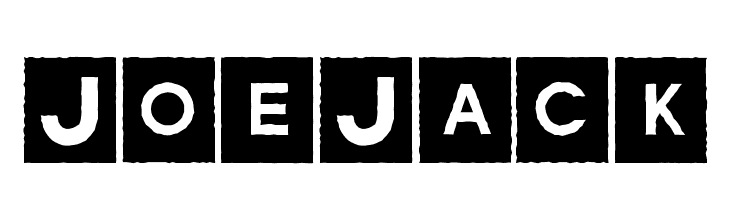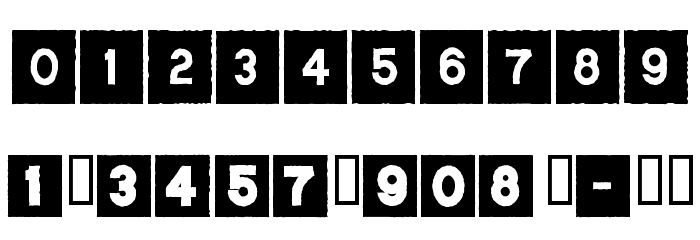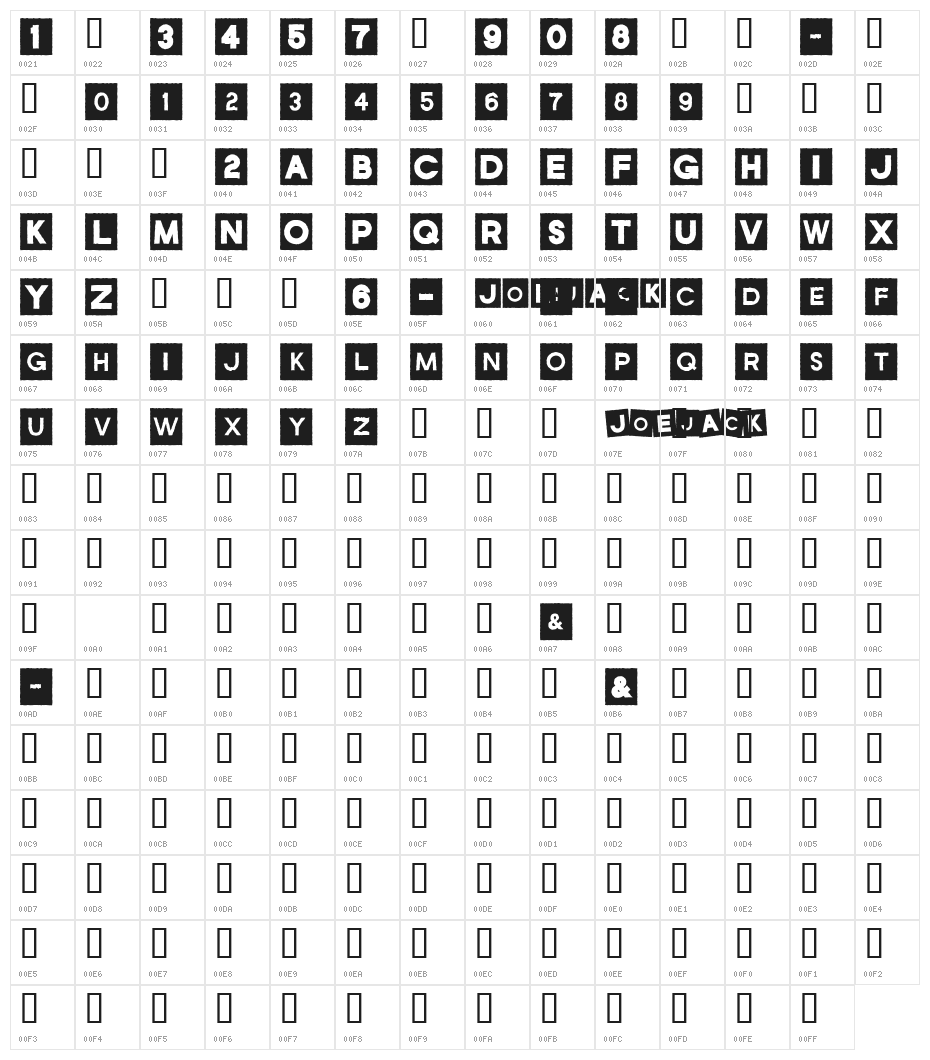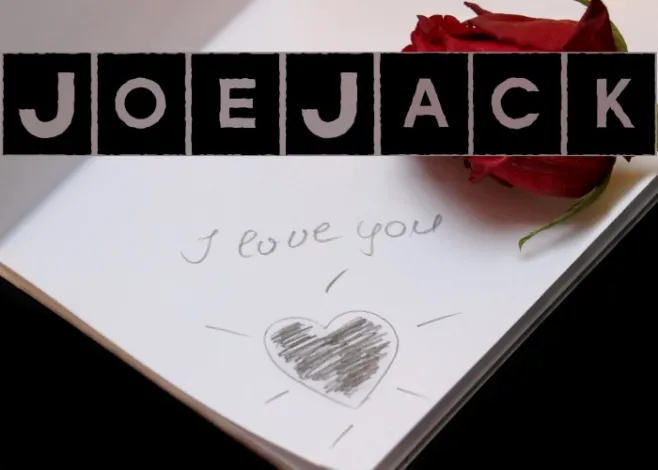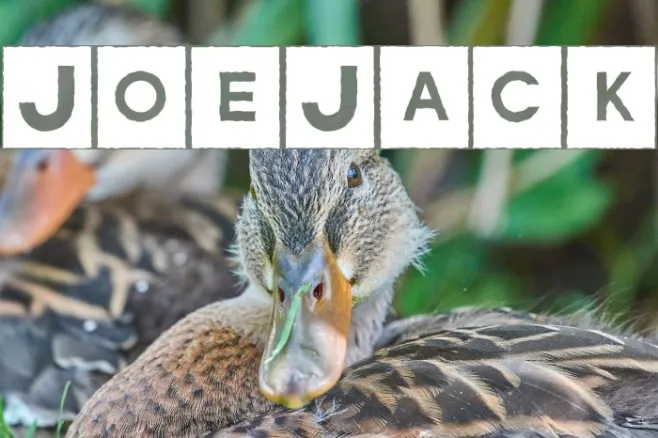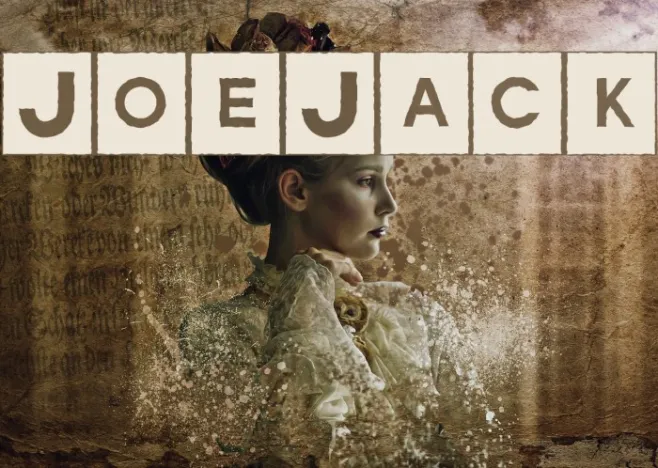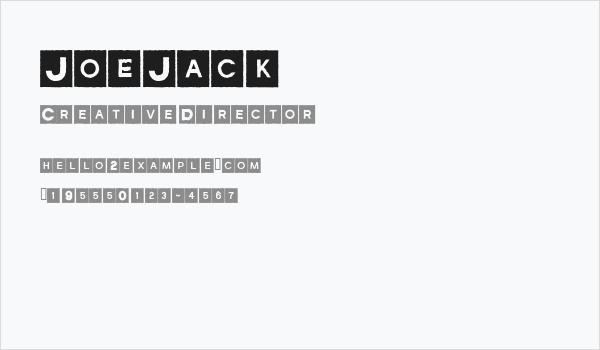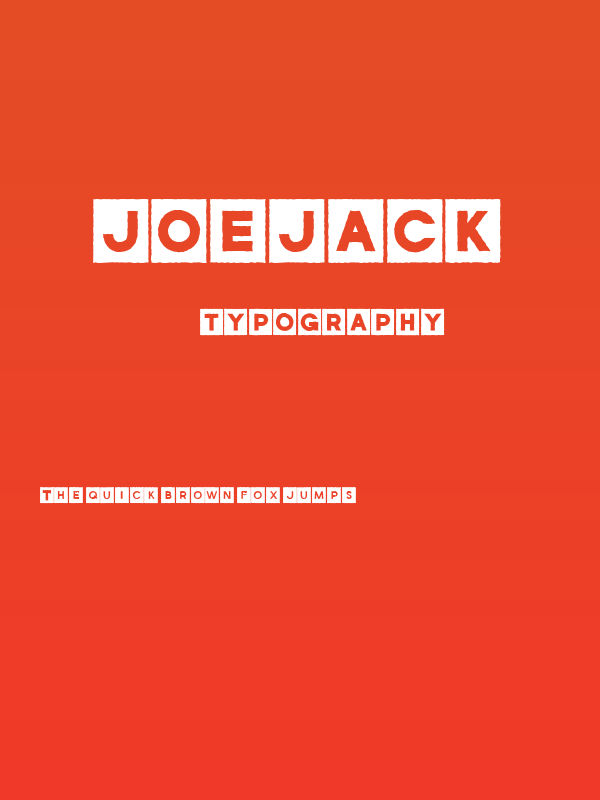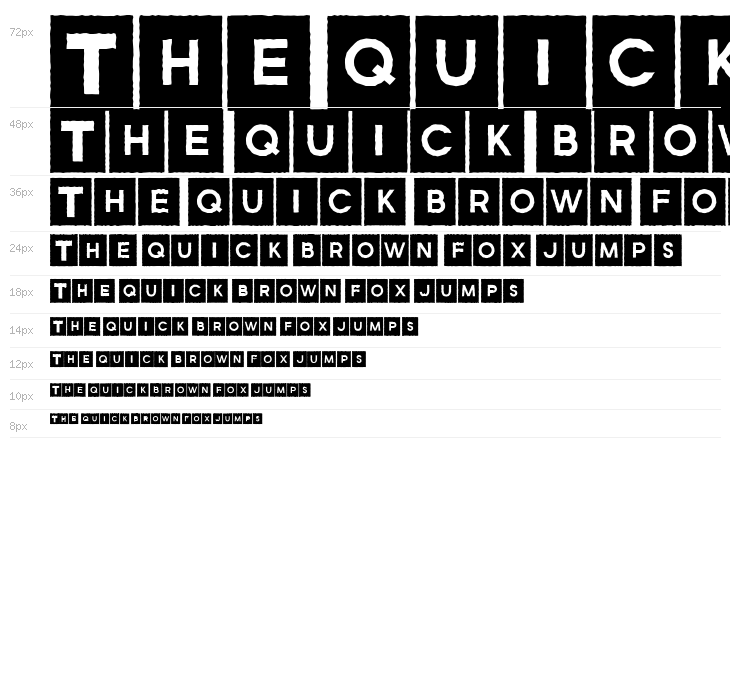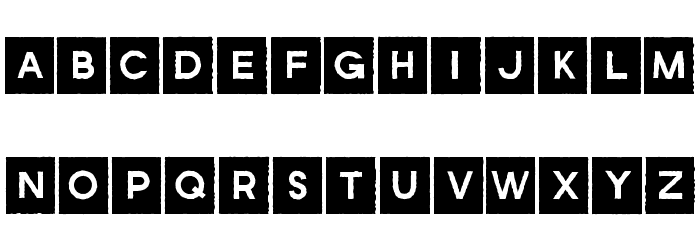
JoeJack Font
JoeJack Description
This font features bold, uppercase and lowercase letters, as well as numbers and special characters, all enclosed within solid black squares. The characters are white, creating a striking contrast against the black background. The style is reminiscent of a stencil or stamp, with a slightly distressed look that adds a vintage or industrial feel. The font is highly legible and makes a strong visual impact, suitable for designs that require a bold statement. The uniformity of the square backgrounds provides a structured and organized appearance, while the distressed edges add character and uniqueness.
| Proposed Projects | Ideal for posters, signage, branding, and any project needing a bold, vintage aesthetic. |